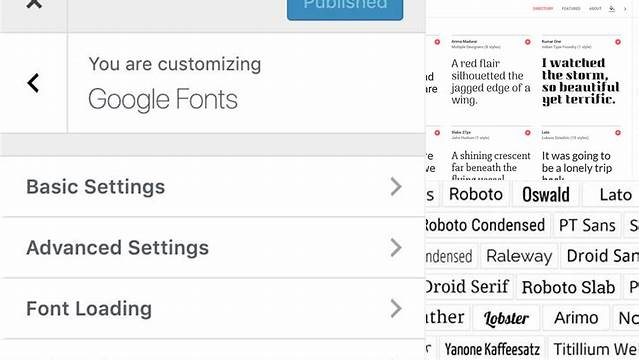
Google Fonts In WordPress: Typography Guide
Google Fonts has revolutionized web design, offering a vast library of free, high-quality fonts that can dramatically enhance the look and feel of your WordPress website. Typography, the art and technique of arranging type, plays a crucial role in readability, brand identity, and overall user experience. This comprehensive guide will walk you through everything you need to know about using Google Fonts effectively in WordPress, from selecting the right fonts to implementing them seamlessly.
Understanding the Importance of Typography
Typography is more than just choosing a pretty font; it's about conveying your message clearly and engagingly. The right font can enhance readability, establish a visual hierarchy, and reinforce your brand's personality. Imagine reading a serious news article written in a playful, cartoonish font – it simply wouldn't work. Similarly, a sleek, modern website would look out of place with a traditional, ornate font. Choosing the right fonts can significantly impact how visitors perceive your website and your brand.
Effective typography involves several key considerations. Firstly, readability is paramount. A font should be easy to read, even in large blocks of text. Secondly, legibility refers to how easily individual characters can be distinguished from one another. A highly stylized font might look beautiful but be difficult to decipher at smaller sizes. Thirdly, contrast between font styles and sizes helps create a visual hierarchy, guiding the reader's eye through the content. For example, using a larger, bolder font for headings and a smaller, more legible font for body text helps structure the page and makes it easier to scan.
Furthermore, your font choices should align with your brand identity. A professional services firm might opt for clean, classic fonts like Open Sans or Roboto, while a creative agency might choose something more unique and expressive, such as Montserrat or Playfair Display. The key is to select fonts that reflect your brand's personality and values. Think about the message you want to convey. Is it trust, innovation, creativity, or something else? Your typography should reinforce that message.
Finally, consistency is crucial. Stick to a limited number of fonts (typically two or three) throughout your website to maintain a cohesive look and feel. Using too many different fonts can make your site look cluttered and unprofessional. A common practice is to pair a display font for headings with a highly legible font for body text. For example, you might use a bold, eye-catching font like Oswald for headings and a clean, readable font like Lato for the main content. Consistency in typography contributes to a polished and professional appearance, enhancing user experience and building brand recognition.
Navigating the Google Fonts Library
Google Fonts is a treasure trove of typographic possibilities, offering thousands of fonts across various styles, weights, and languages. Navigating this vast library can feel overwhelming, but with a strategic approach, you can find the perfect fonts for your WordPress website. Guys, let's dive in and explore the resources available to help you make informed decisions.
The Google Fonts website itself is a great starting point. It offers a robust search and filtering system that allows you to narrow down your options based on several criteria. You can filter by font category (serif, sans-serif, display, handwriting, monospace), font properties (thickness, slant, width), and even the number of styles available. This is super handy for finding exactly what you're looking for or discovering new fonts that fit your specific needs. The ability to filter ensures that you're not wading through fonts that are completely irrelevant to your project.
One of the most useful features of the Google Fonts website is the preview text option. You can enter your own text to see how a font looks in action, which is far more helpful than just seeing the alphabet displayed. This allows you to assess the font's readability and legibility with your actual content. Play around with different sizes and weights to get a feel for how the font will perform in various contexts on your website. It's like test-driving a car before you buy it, but for fonts!
Another fantastic resource is the pairing suggestions provided by Google Fonts. The website often suggests complementary fonts that work well together, which can be a huge time-saver. Pairing fonts effectively is crucial for creating a visually harmonious website, and these suggestions can help you achieve a professional look without needing to be a typography expert. They usually recommend pairings that provide a good balance between headings and body text, ensuring readability and visual interest.
Beyond the Google Fonts website, numerous online resources and tools can assist you in your font selection process. Websites like FontPair and Canva's Font Combinations tool offer curated font pairings and design inspiration. These resources can be incredibly valuable for exploring different typographic styles and finding combinations you might not have considered. They often provide examples of how the fonts look in real-world designs, giving you a better sense of their potential impact.
Mastering Google Fonts in WordPress is a journey that involves understanding typography principles, navigating the vast font library, implementing fonts effectively, and troubleshooting common issues. By following the guidelines and best practices outlined in this guide, you can transform your website's design and create a visually appealing and engaging experience for your visitors. Remember, typography is more than just aesthetics; it's about communication and creating a lasting impression. So, go ahead, experiment with different fonts, and discover the perfect typographic voice for your brand.